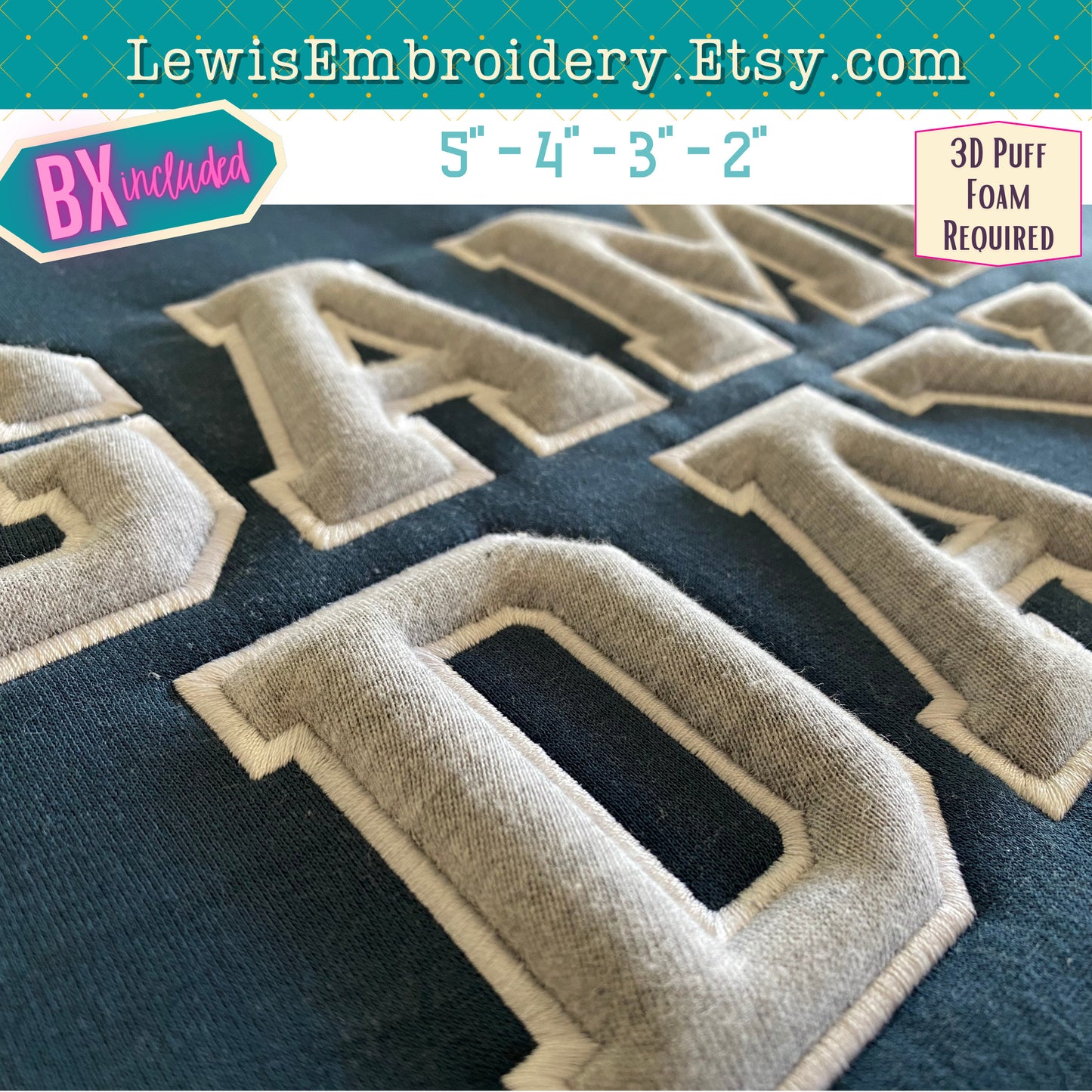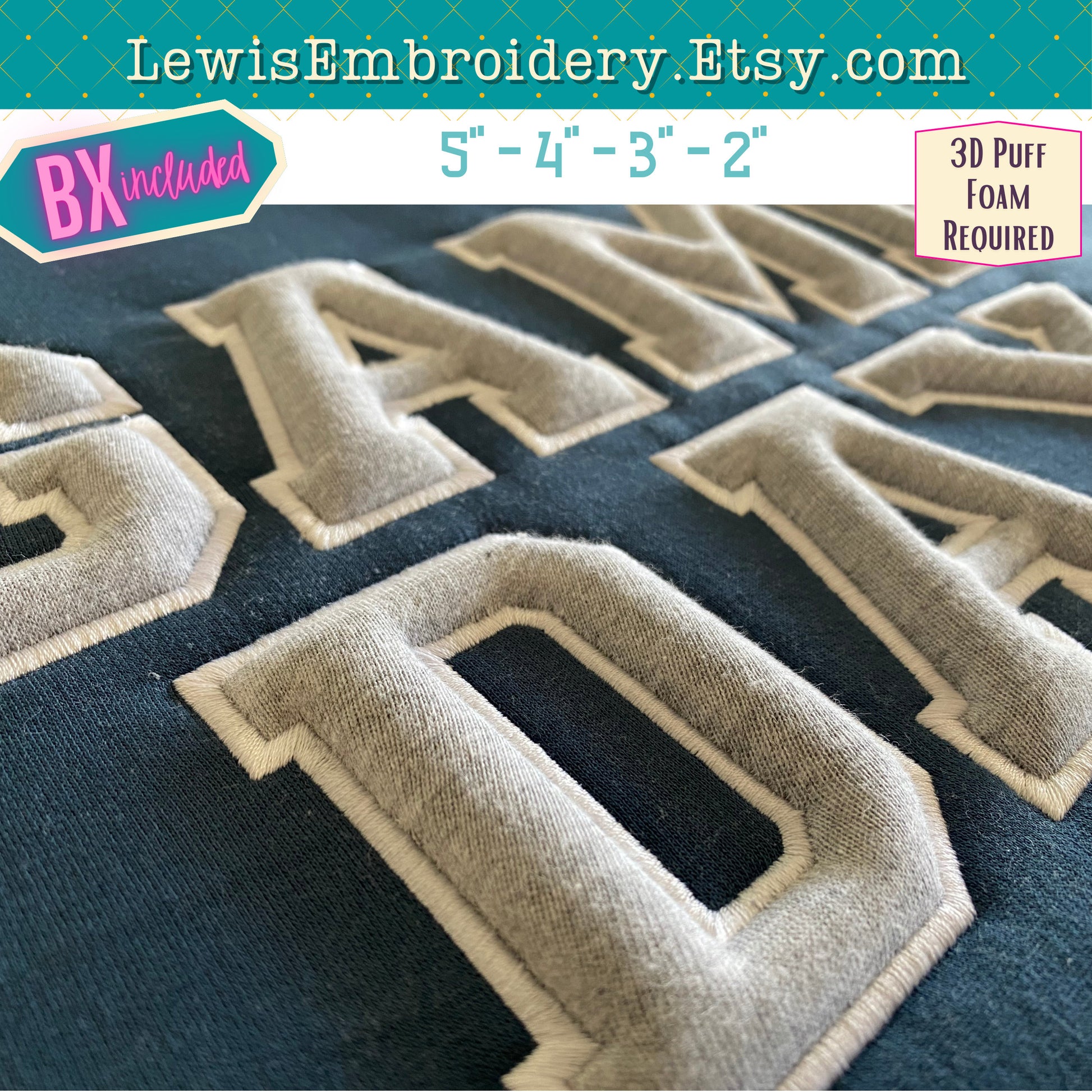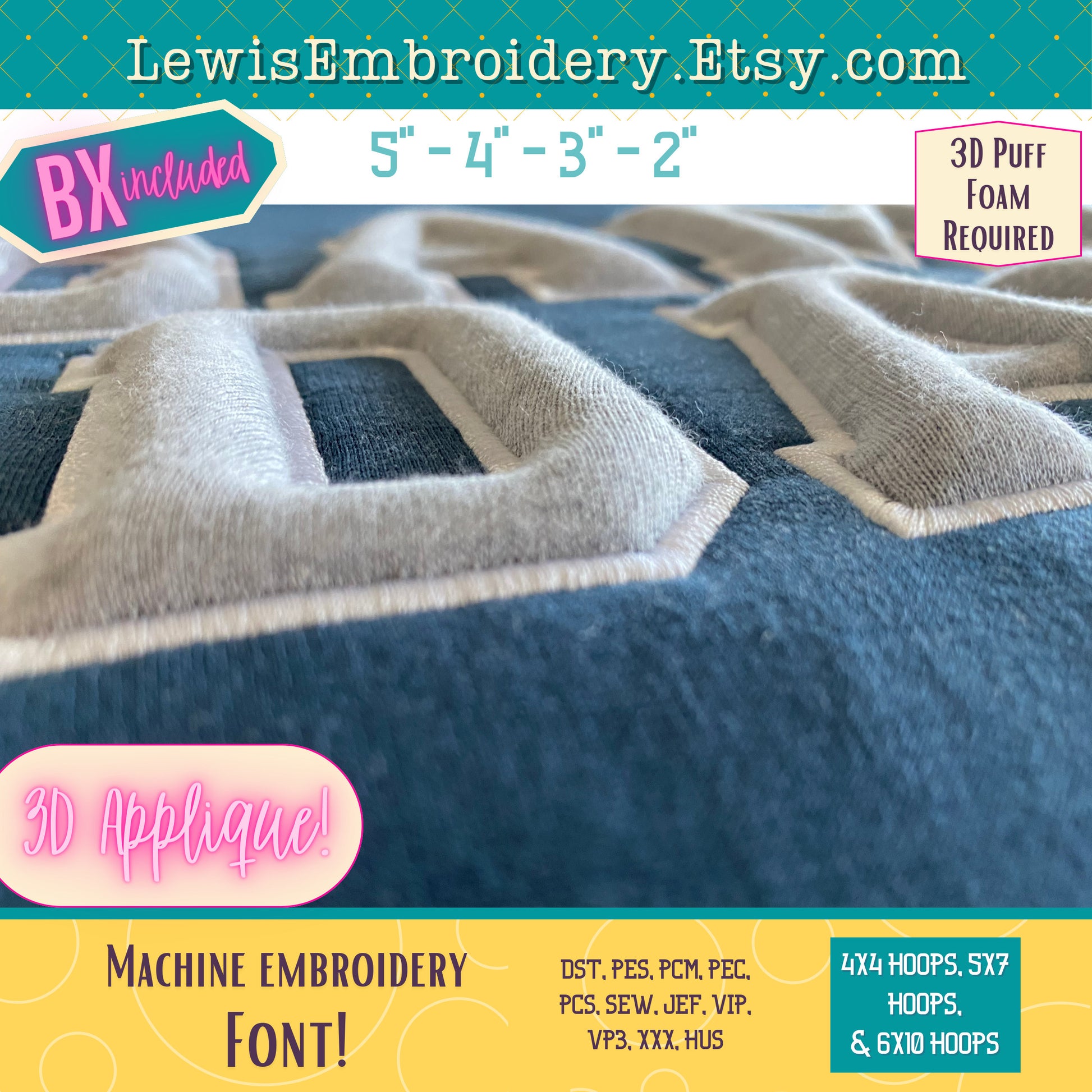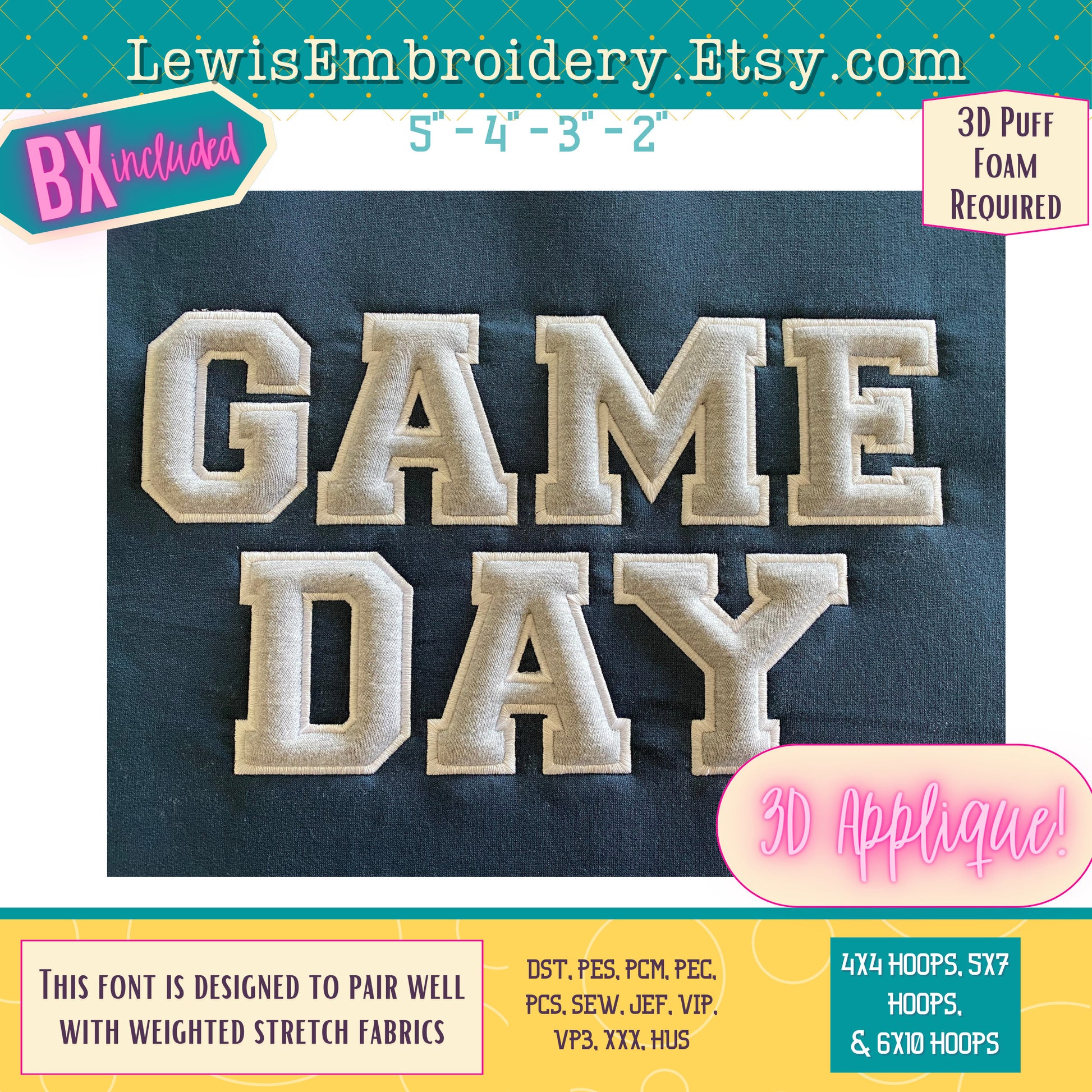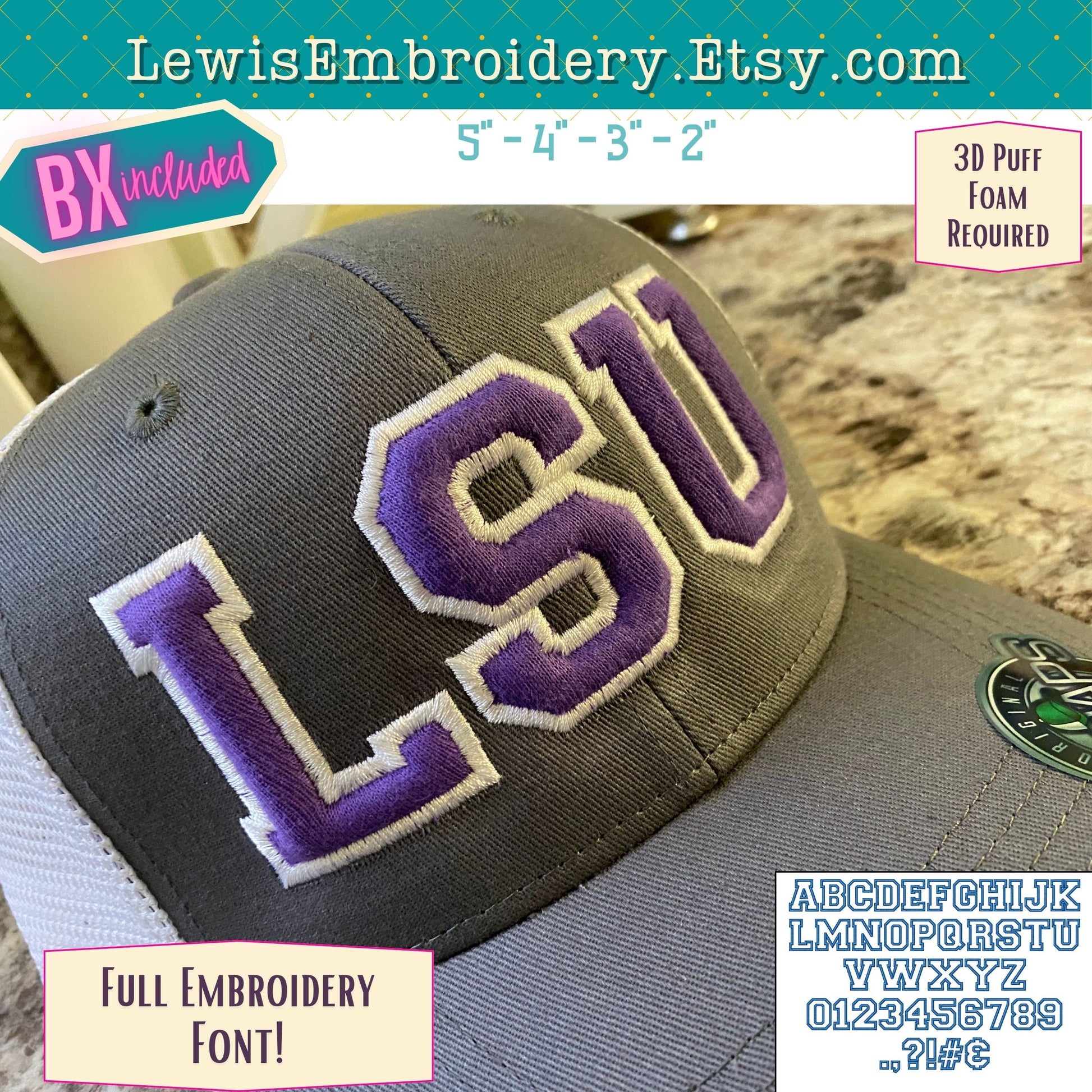
3D Puff Applique Embossed, Varsity, Machine Embroidery Font - With BX - (PDF Tutorial Included)
3D Puff Applique Font - Varsity Applique Font - 3D Puff Varsity Font - Embossed Embroidery Font - Puff Foam Embroidery Font - Block Font
This font was designed to be used with a weighted stretchy fabric. The quality of the outcome cannot be guaranteed if you use very lightweght fabric, or fabric with no stretch.